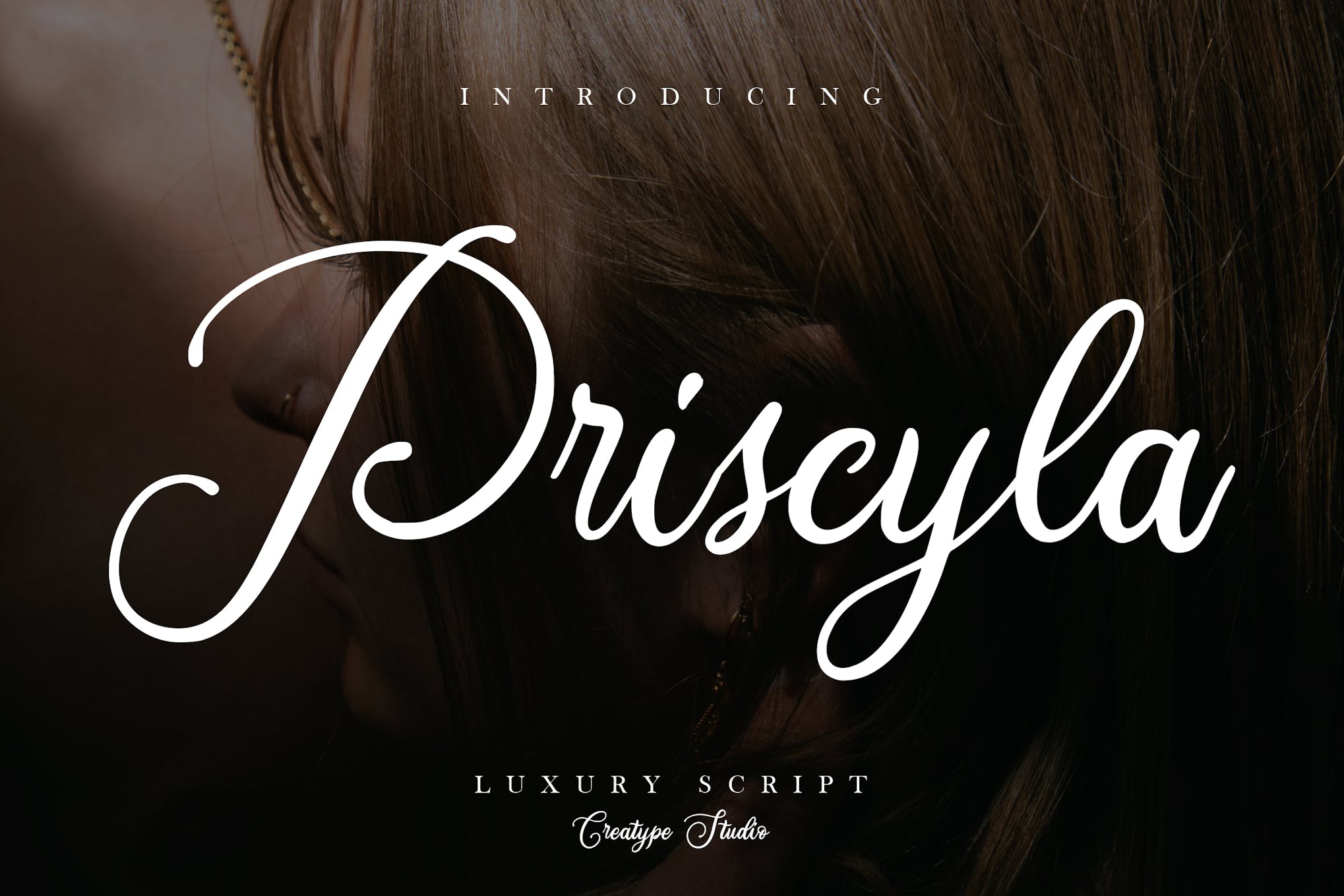
Priscyla Luxury Wedding Font
The Priscyla Luxury Wedding Font excels in opulent design applications including luxurious wedding invitations, premium bridal branding, prestigious ceremony logos, luxury product packaging, opulent business cards, luxury portfolios, premium greeting cards, luxury social media graphics, prestigious event signage, and opulent marketing materials. Its luxury script style makes it perfect for projects requiring opulent elegance that communicates prestige and establishes luxury brand positioning with audiences seeking premium wedding experiences and opulent sophistication.
What makes the Priscyla Luxury Wedding Font truly exciting is its exceptional ability to capture the opulent beauty and prestigious elegance of luxury weddings through luxuriously crafted letterforms. The font features flowing, luxury-inspired strokes with opulent flourishes and premium proportions that create a distinctly prestigious appearance. Each character displays remarkable attention to luxury detail with opulent curves, prestigious connections, and luxury spacing that give text a beautifully luxurious, hand-lettered quality. The font's luxury character and opulent rhythm create an atmosphere of premium elegance while maintaining luxury sophistication and wedding authenticity.
The Priscyla Luxury Wedding Font family typically includes regular weight with extensive character coverage, featuring uppercase and lowercase letters, numerals, punctuation marks, and international characters. The typeface often incorporates stylistic alternates, contextual ligatures, and luxury swashes that enhance its signature opulence. These additional elements provide designers with creative flexibility to customize text appearance and achieve more natural-looking luxury handwriting that reflects the font's opulent and prestigious character.
This luxurious signature font distinguishes itself through its remarkable balance of opulent charm and sophisticated elegance. Unlike budget or ordinary fonts that lack luxury appeal, Priscyla Luxury Wedding Font embraces the power of premium design to create prestigious connections with luxury wedding audiences. The font's opulent character makes it essential for luxury wedding planners, premium brands, and prestigious celebration businesses where creating luxury wedding experiences and opulent memories is fundamental to success in premium wedding markets.